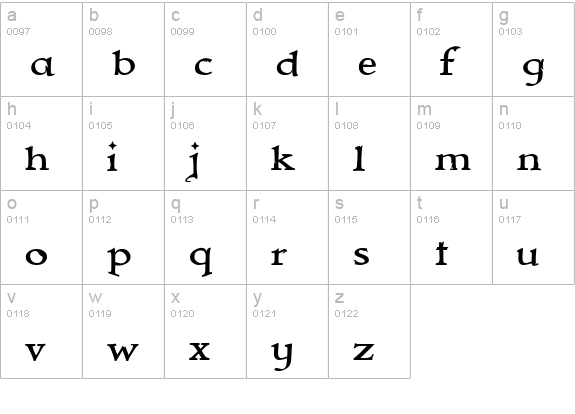
Immortal Font Details
Introducing the captivating and timeless Immortal font, a truly remarkable typeface that exudes elegance and sophistication. This font is the epitome of eternal beauty, with its meticulously crafted letterforms and seamless curves that seem to transcend time itself. Imbued with an air of immortality, Immortal font is perfect for those seeking to make a lasting impression. Its graceful yet bold strokes effortlessly command attention, whether used for headlines, logos, or any design project that demands an element of grandeur. What sets Immortal font apart is not only its exquisite design, but also its accessibility. This remarkable font is freely available to all, allowing designers and enthusiasts alike to harness its power and unlock their creative potential. To download the Immortal font for free, simply visit FontsMarket.com, where it awaits, ready to add a touch of everlasting charm to your projects. Immerse yourself in the timeless beauty of Immortal font and watch as your designs transcend the boundaries of ordinary typography. Its versatility knows no bounds, making it suitable for a wide range of applications, from high-end fashion editorials to luxury branding initiatives. The Immortal font is meticulously designed to adapt to any context, effortlessly conveying elegance and sophistication. Its legibility remains uncompromised, even when used in small sizes, ensuring that your message is clear and impactful. Embrace the power of Immortal font and experience the extraordinary. With its free availability at FontsMarket.com, you have the opportunity to download this remarkable typeface and unlock the secret to creating designs that will stand the test of time. It's time to leave a lasting impression with Immortal font.